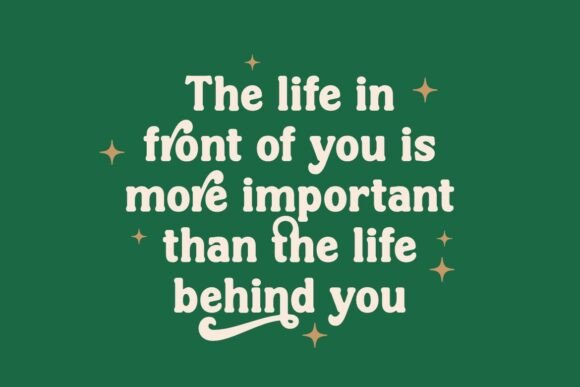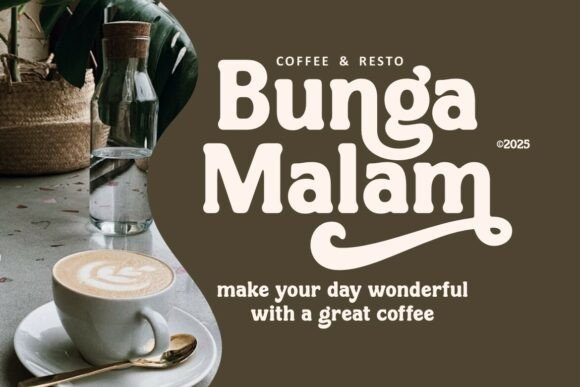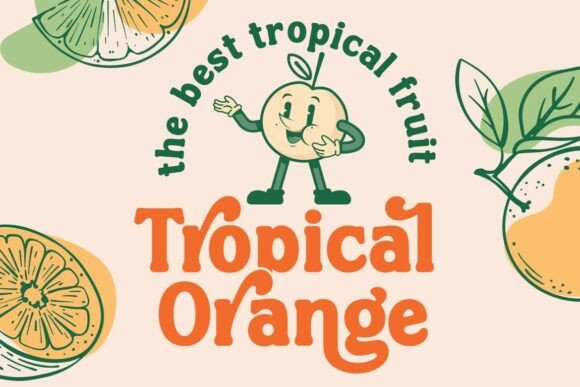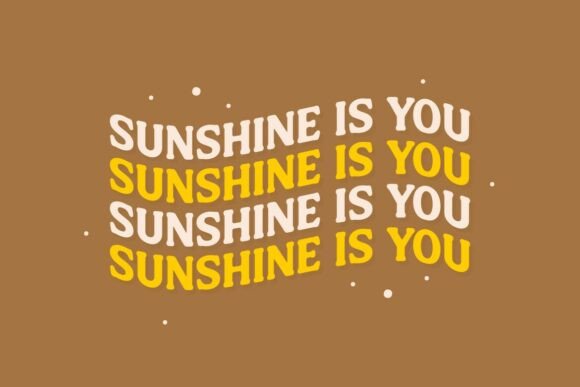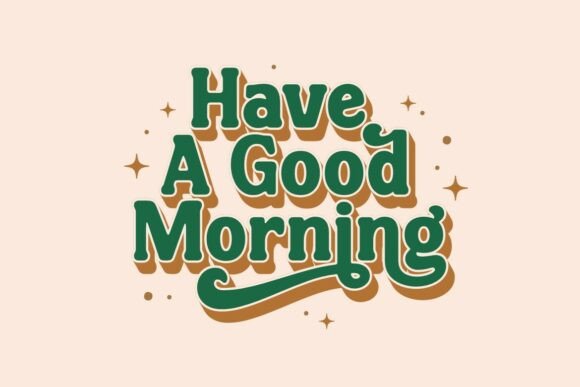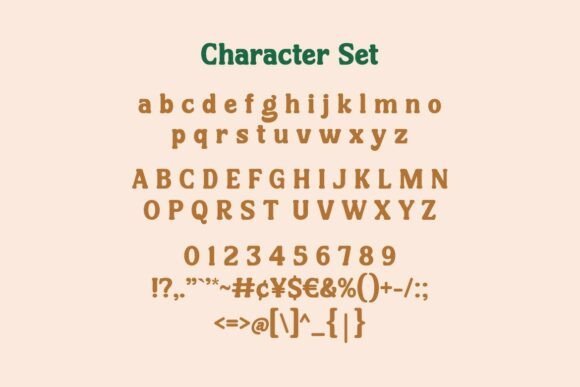
Introduction to Rangu Halend Otf Font Font
Fonts play a crucial role in design, and the Rangu Halend Otf Font font is a typeface that brings both character and versatility to any project. Whether you’re working on a branding project, a website, or a print design, the Rangu Halend Otf Font font offers a unique style that can elevate your work.
Rangu Halend β Bold Retro Serif with Swash Alternatives Rangu Halend is a bold and simple retro serif font that brings nostalgic charm with a modern twist.
Designed with clean lines and vintage character, it also includes stylish swash alternates to give your design projects an extra layer of flair and personality Whether youβre aiming for a classic or playful aesthetic, this display font adds that perfect retro touch to any creative idea.
Key Features of Rangu Halend Otf Font Font
Why Choose Rangu Halend Otf Font Font?
The Rangu Halend Otf Font font is more than just a typeface β it’s a design tool that helps you communicate your message with style and clarity. Its unique character set and versatile design make it suitable for a wide range of applications, from elegant invitations to bold headlines.
With its carefully crafted letterforms and balanced proportions, the Rangu Halend Otf Font font ensures readability and visual appeal across all mediums.
What makes Rangu Halend Otf Font font special?
The Rangu Halend Otf Font font stands out with its unique design, exceptional readability, and versatility across various design applications.